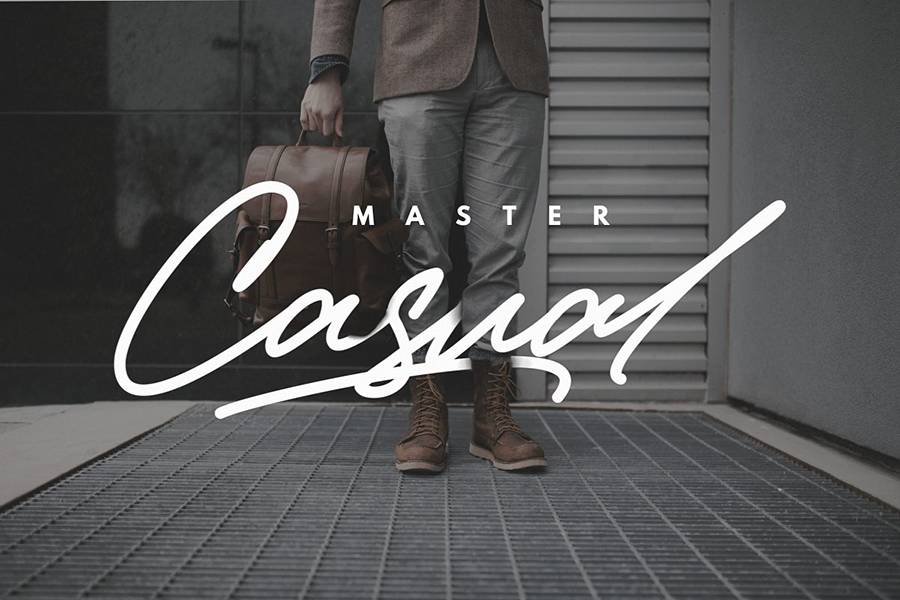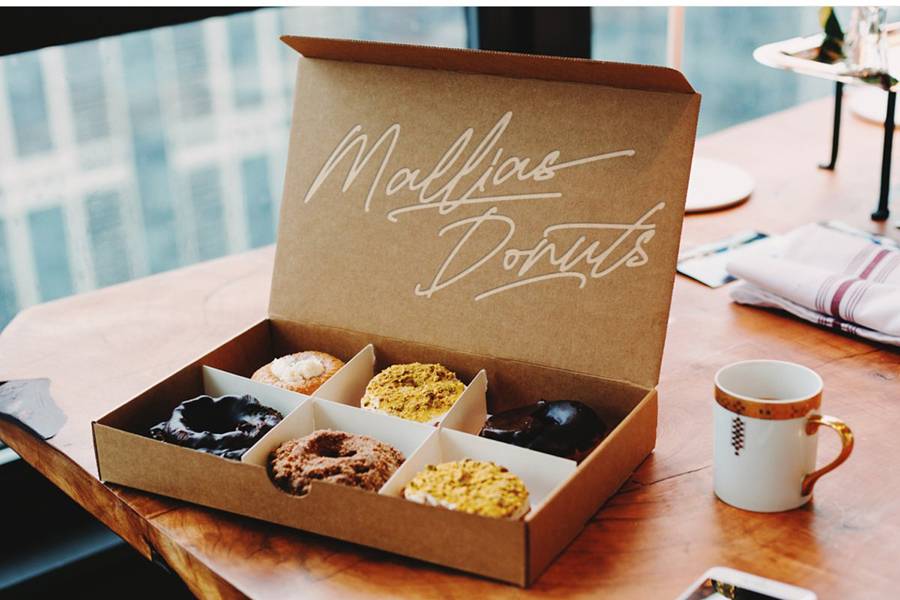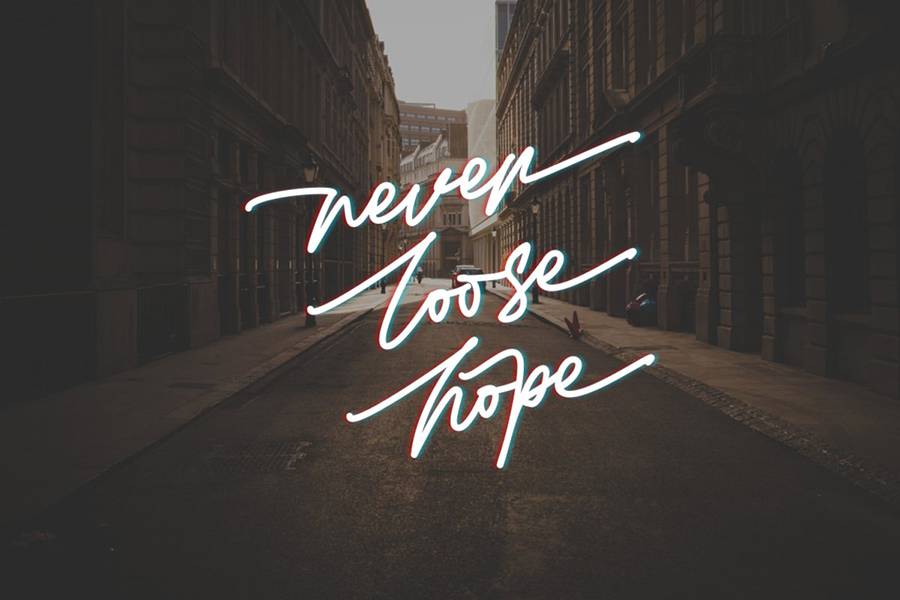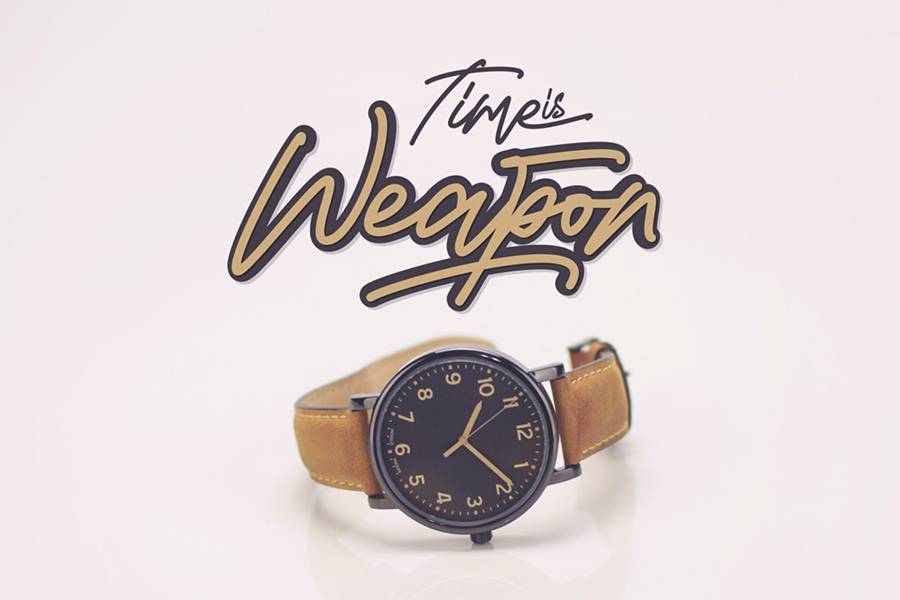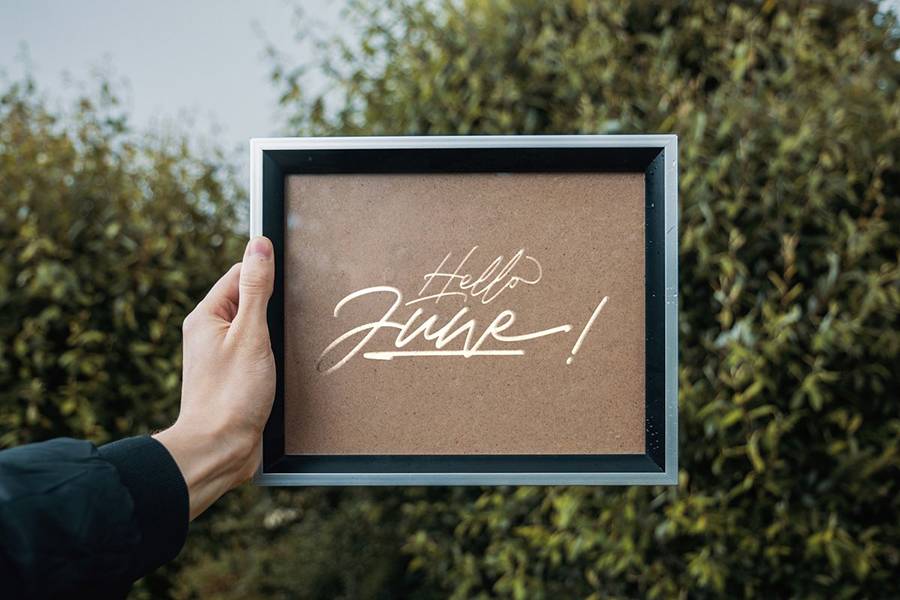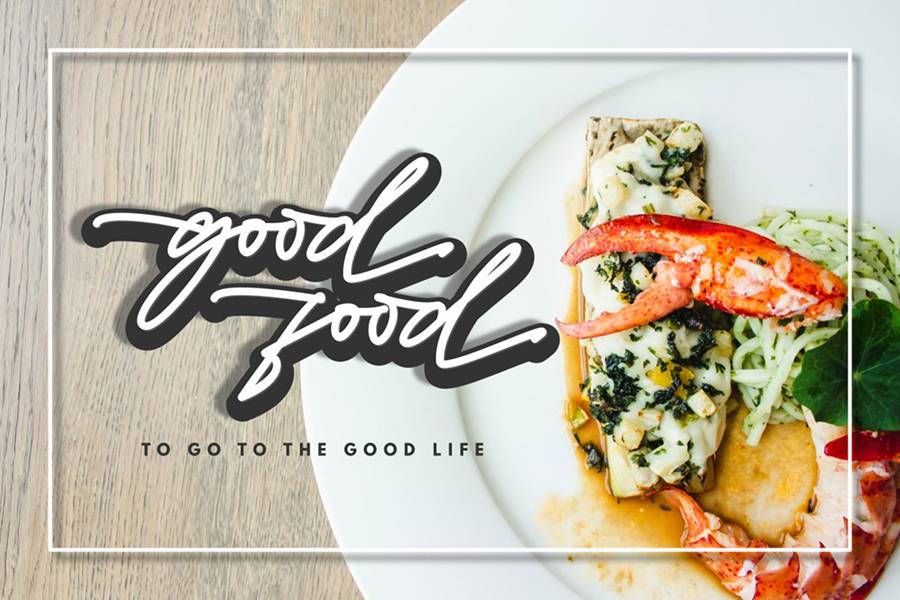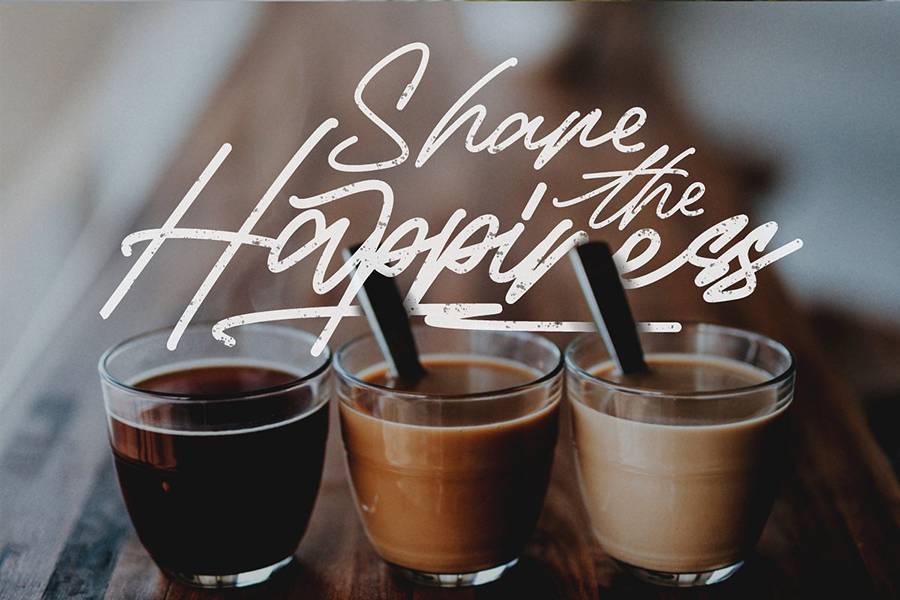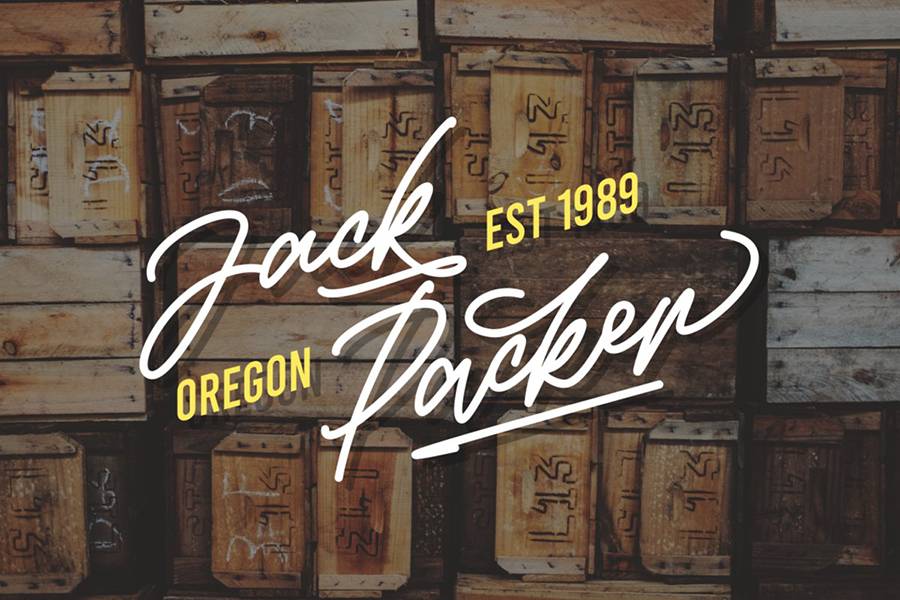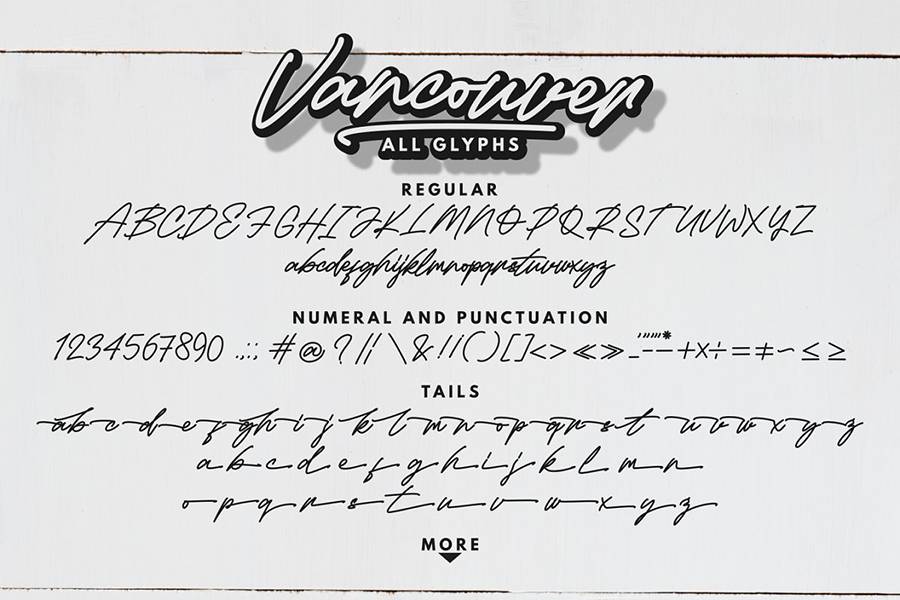
Vancouver Script Demo is a flowing, elegant script font that mimics natural handwriting with its smooth, connected strokes and slightly slanted characters. Its light weight and airy feel make it perfect for adding a personal, stylish touch to invitations, branding, or editorial designs that seek a warm and sophisticated look. This font works especially well where a refined yet approachable handwritten style is desired.
Vancouver Script Demo
About Vancouver Script Demo
| Font family | Vancouver Script Demo |